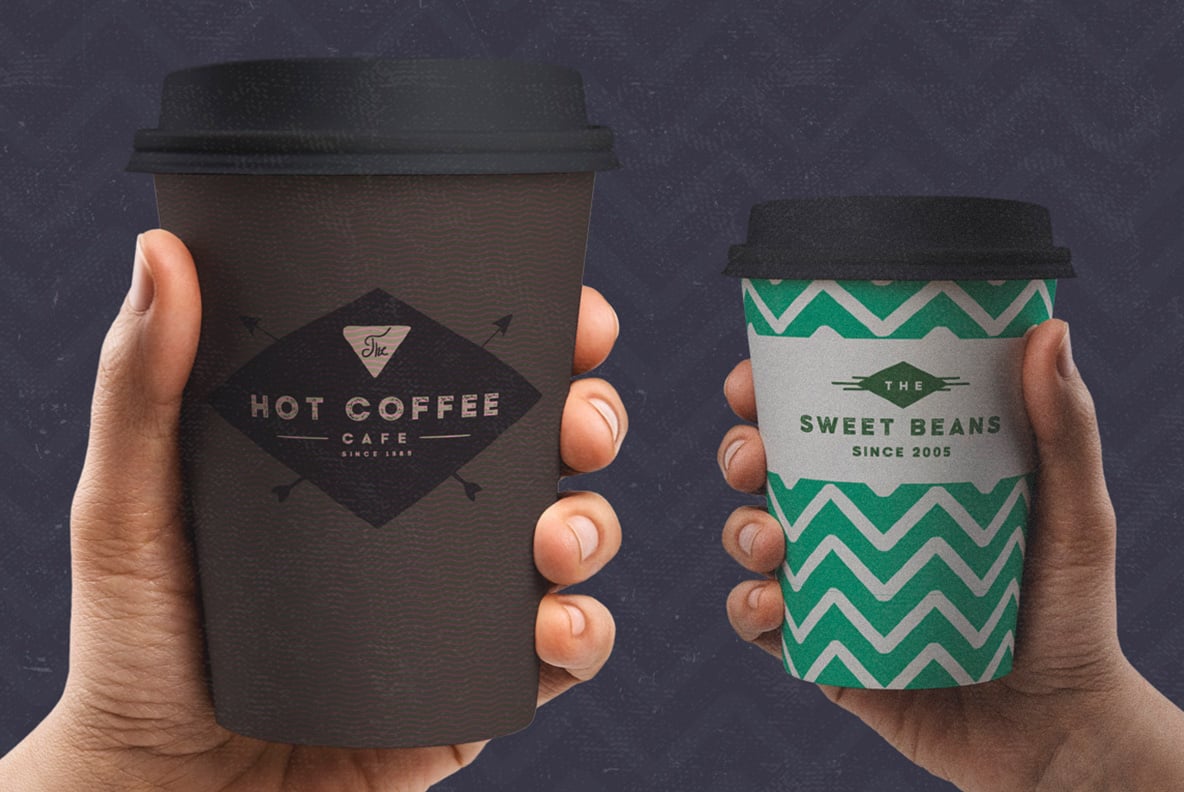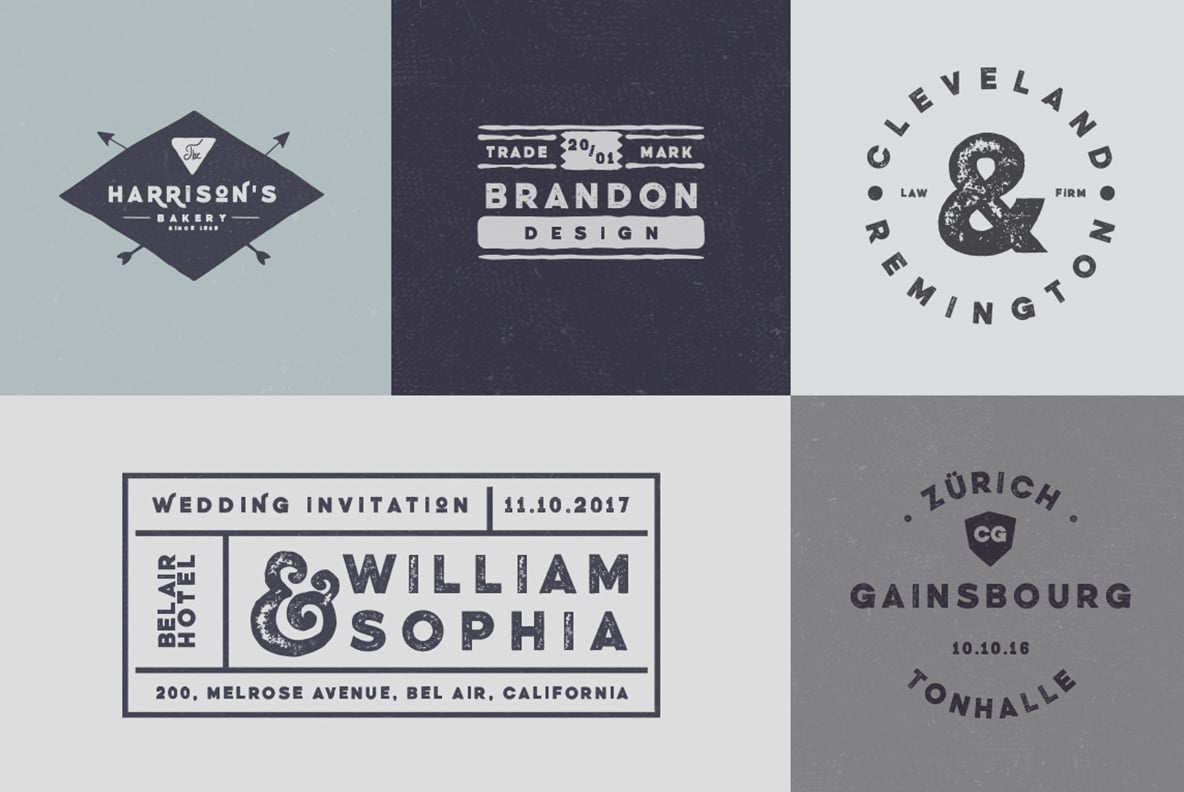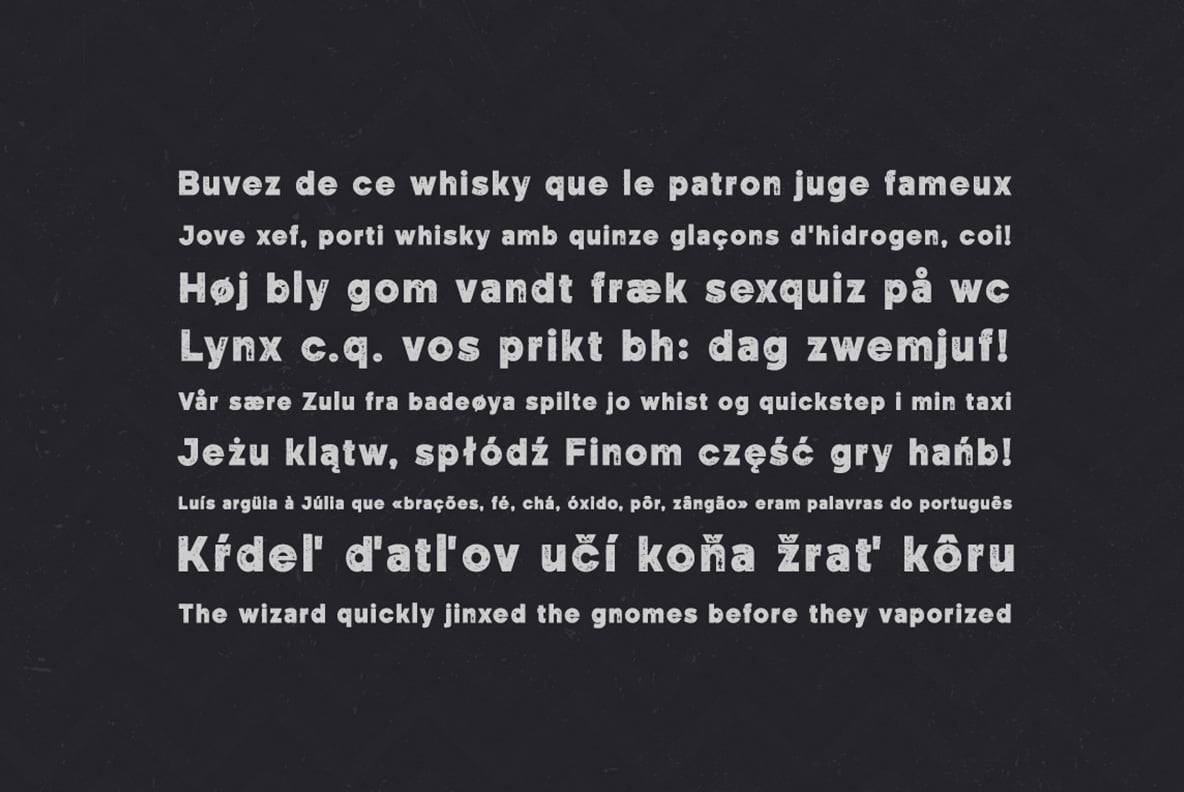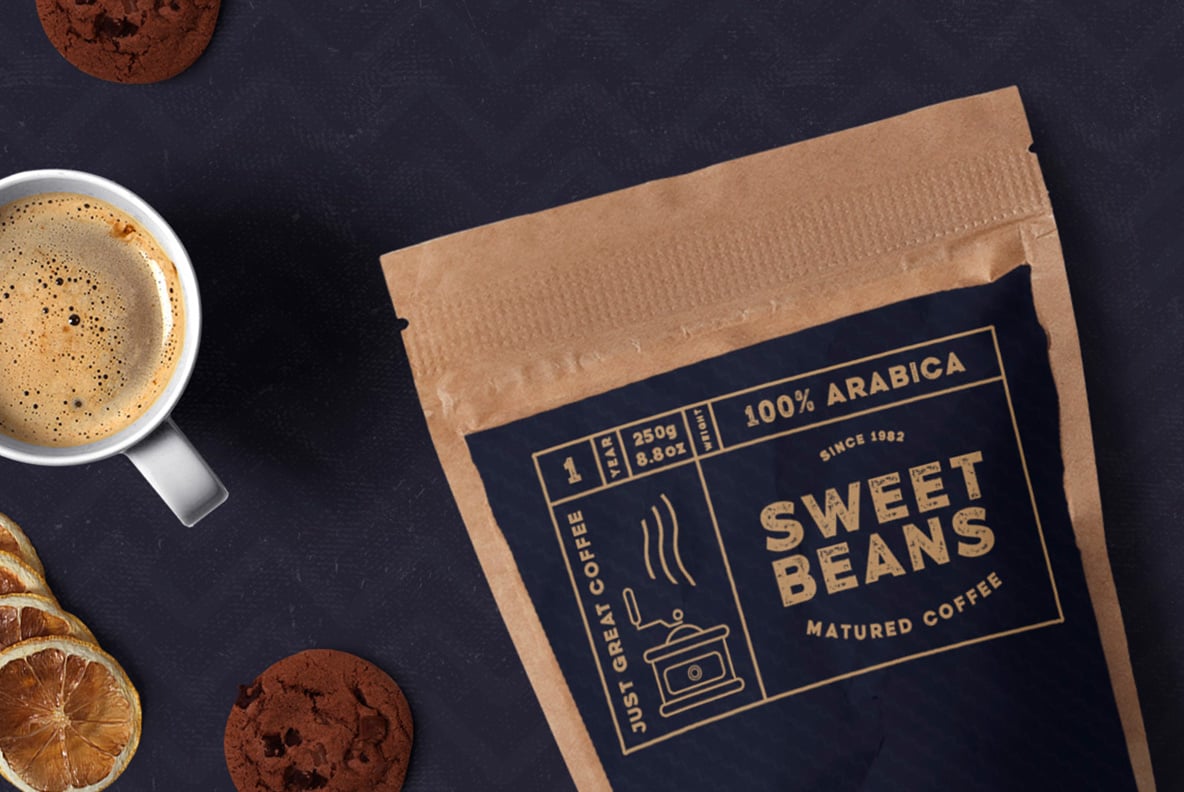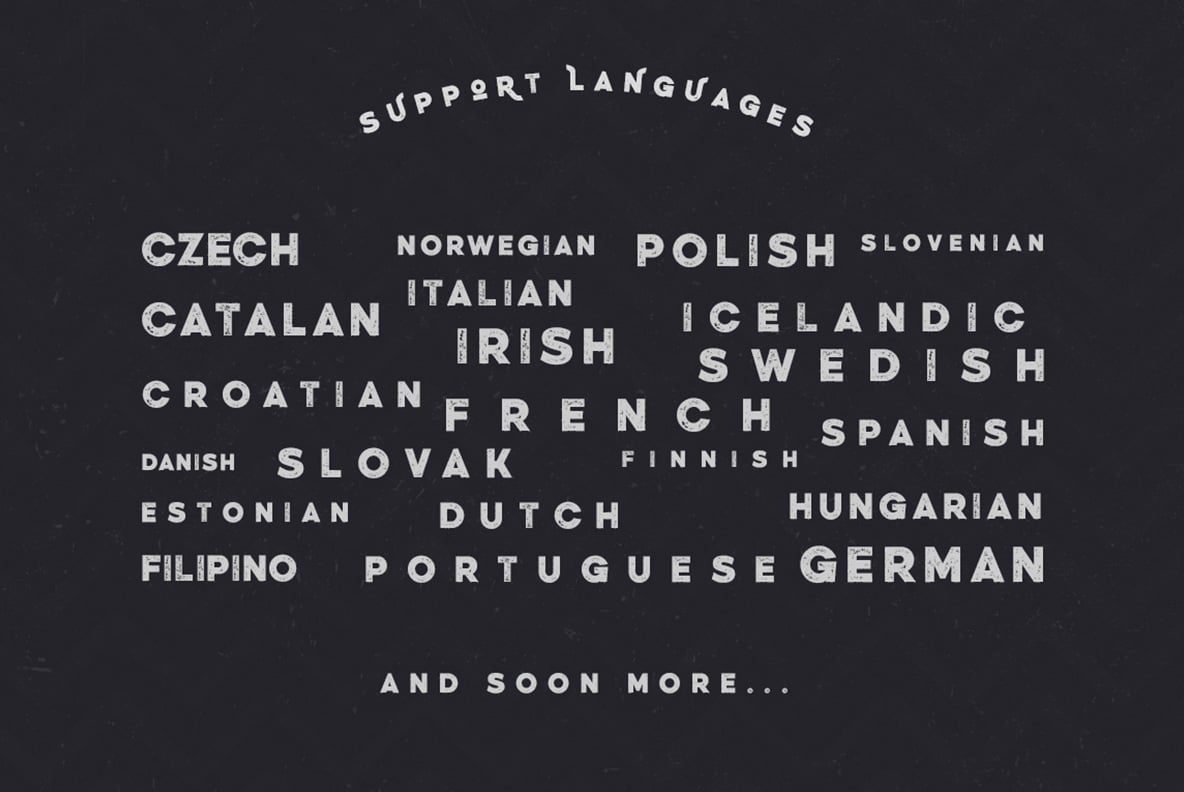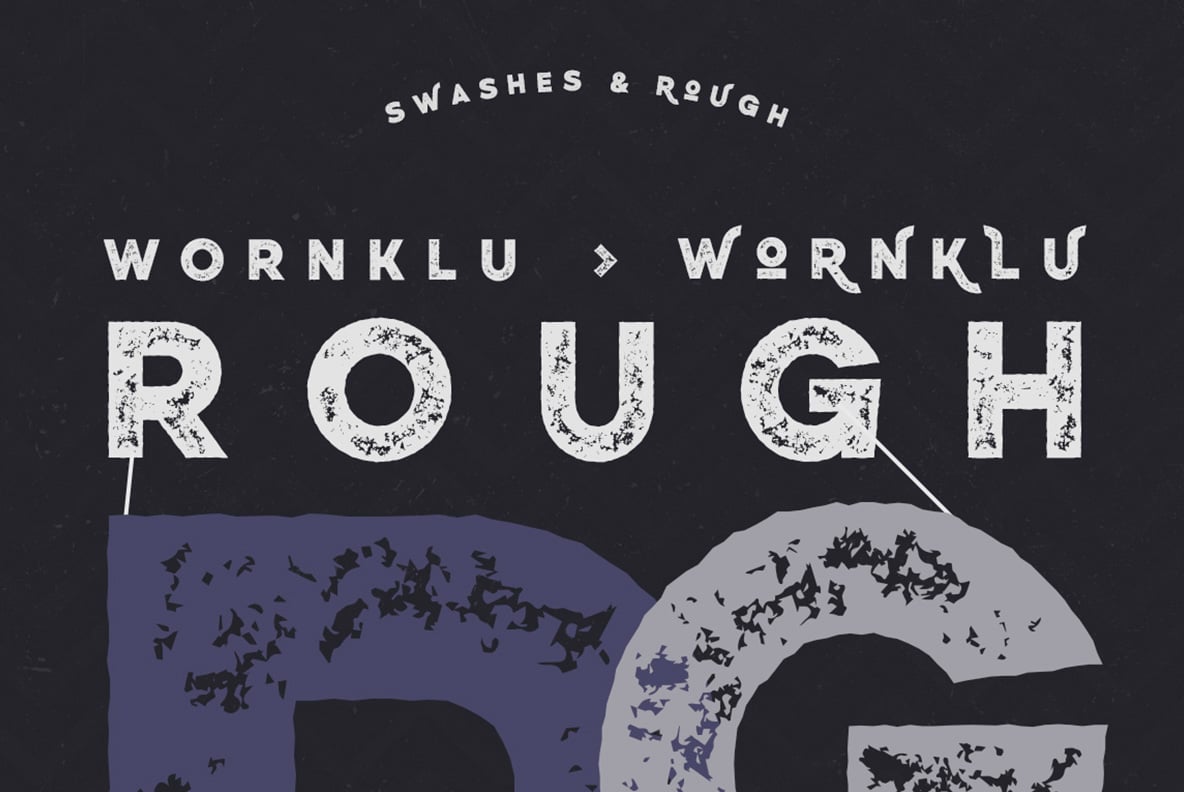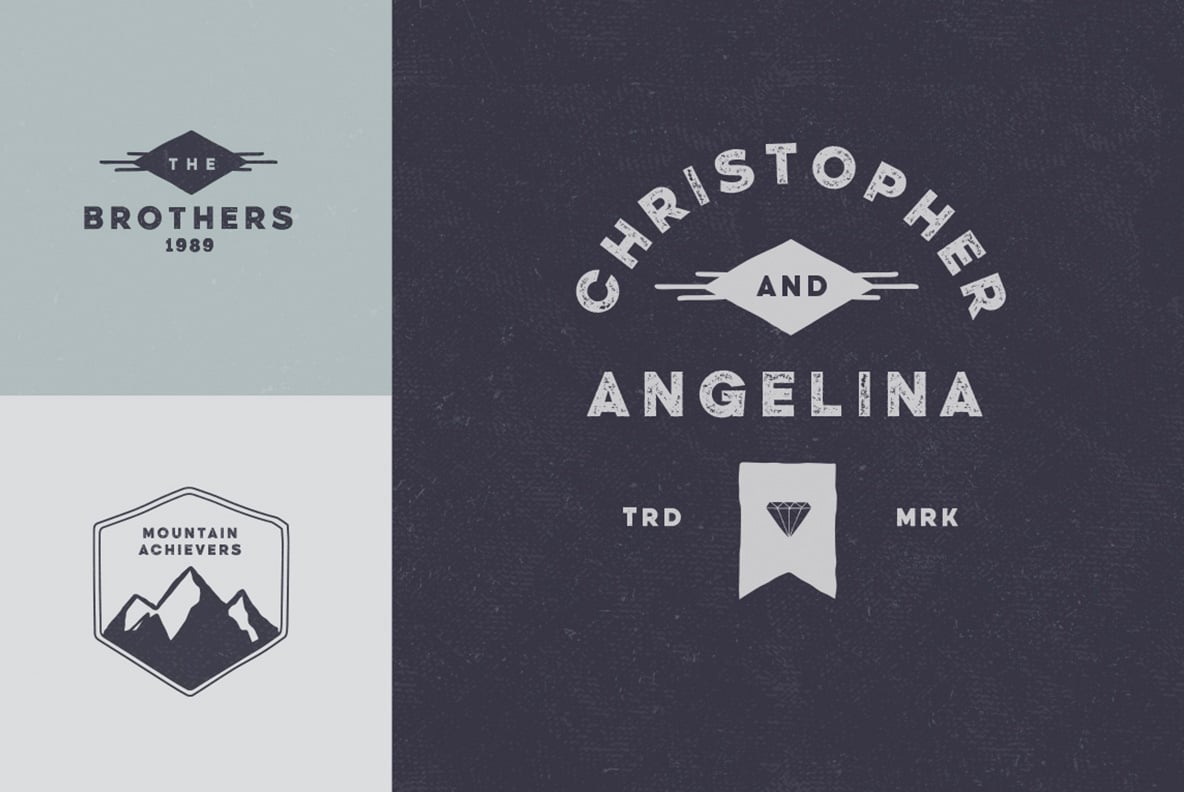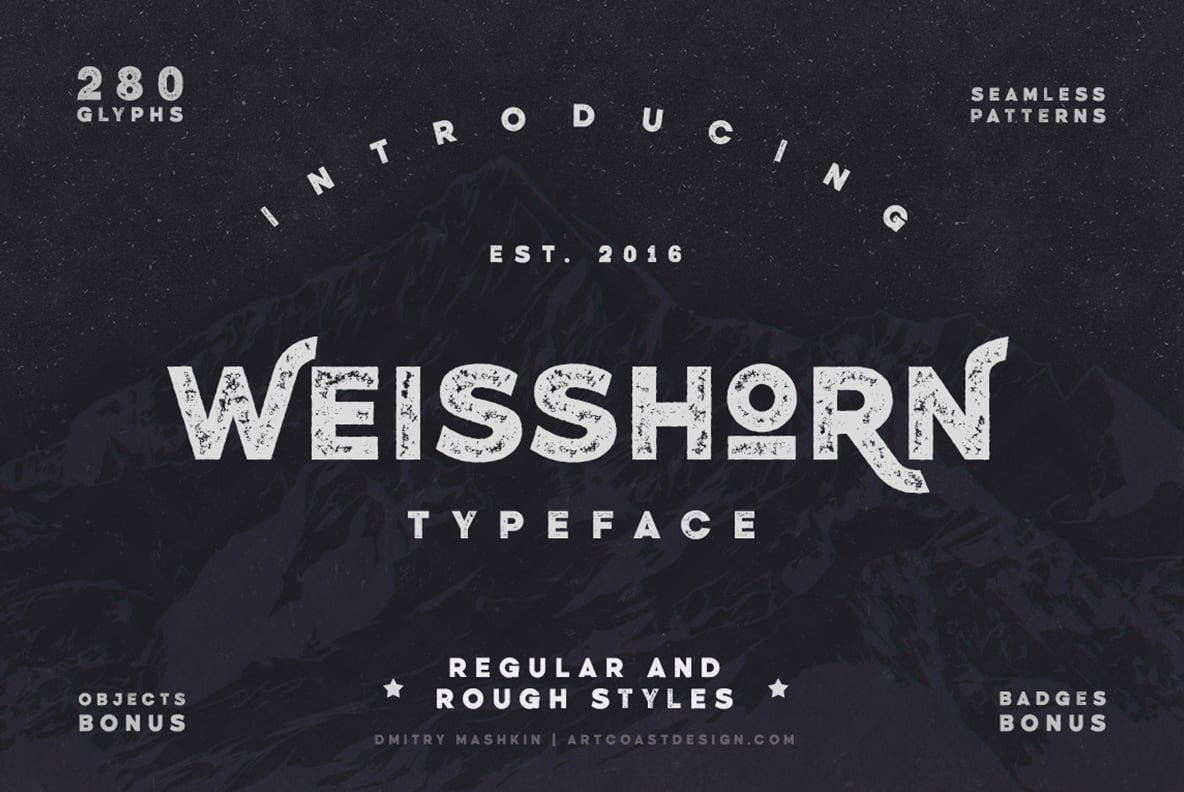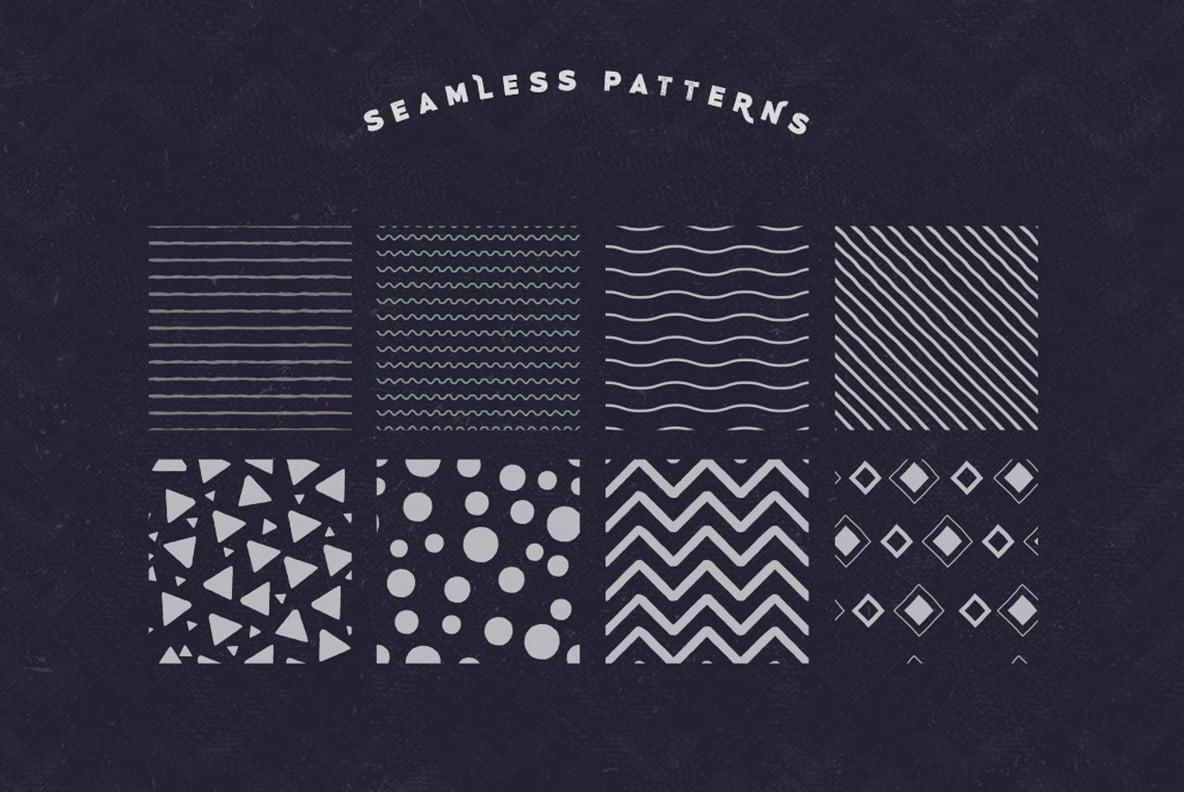
Weisshorn Typeface
Weisshorn Typeface is a new font with Rough version, which includes 280 glyphs and alternative characters.
This font can enliven any a layout make the design appealing. The font looks great on packaging design, you can also use it to brand, create logos, labels and others. The package includes a variety of patterns and objects, and of course a few ready-made badges.
Stylistic Alternates